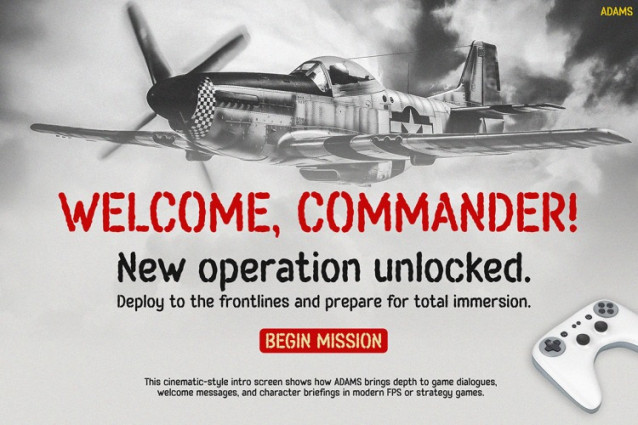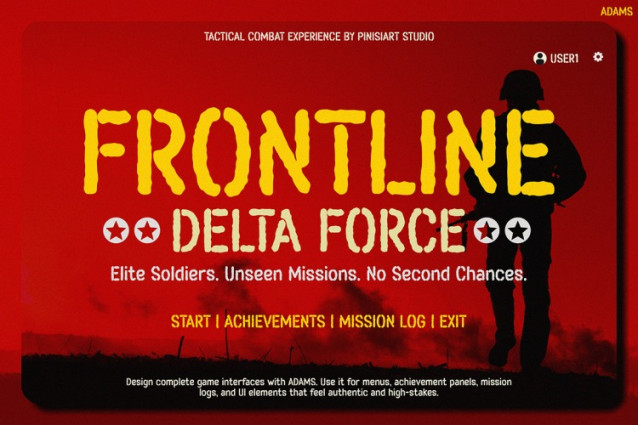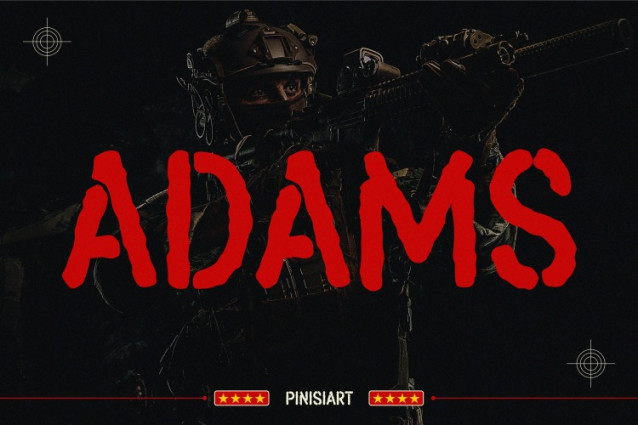
Adams Display Font
Adams Display Font delivers a rugged, military-inspired look that commands attention. Specifically, it’s designed to reflect the intensity of tactical missions and elite combat teams. Moreover, bold, uneven strokes and stencil-cut shapes give each word urgency and strength. Whether you’re working on promotional banners, gaming UIs, or mission logs, ADAMS builds a gritty atmosphere that supports strong storytelling and bold design.
Not only does this font look tough—it also performs under pressure. Thanks to its military-style lettering, it remains eye-catching and efficient. As a result, the strong lines and rough edges make it ideal for high-stakes action, strategy, and realism. Unlike softer or minimalist fonts, ADAMS asserts itself visually, anchoring the viewer in a specific mood: serious, tactical, and powerful.
Each image showcases how ADAMS intensifies the tone of combat-themed content. For instance, in esports titles like G.A.M.E SQUAD: Special Forces Unit, the font turns text into part of the action. Likewise, game interfaces such as Frontline Delta Force feel more immersive with ADAMS. In addition, tech ads—like the one for the TITANVIEW 34Q monitor—gain boldness and authority.
Furthermore, mission briefings like Hostage Rescue benefit from its no-nonsense style. The font mimics stenciled spray paint on military gear. Consequently, it feels raw, urgent, and unmistakably real. When used consistently across visual elements, it reinforces the narrative tone and brand identity.